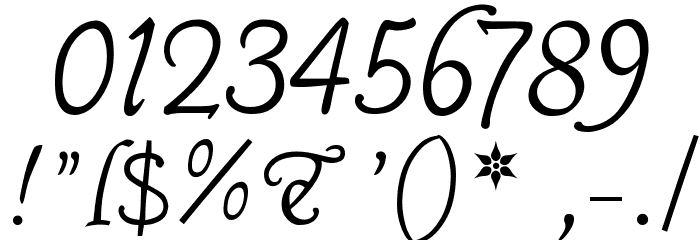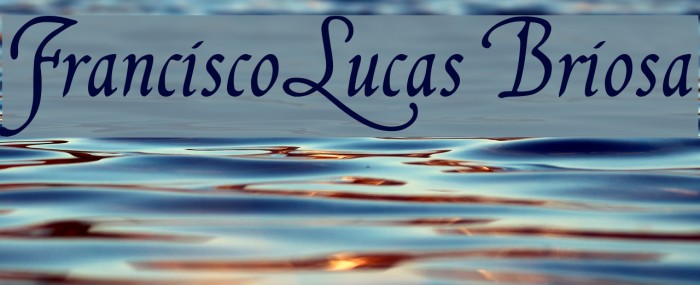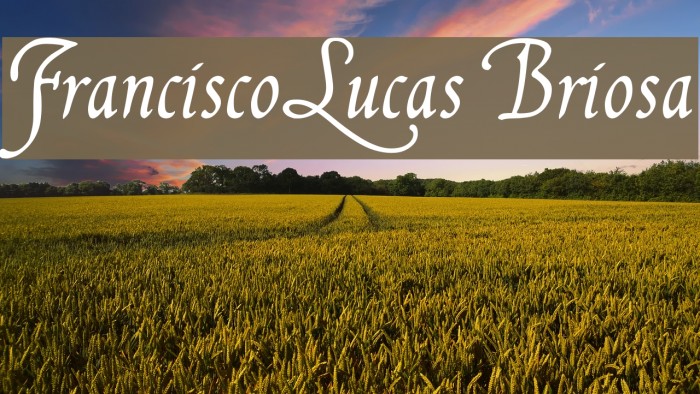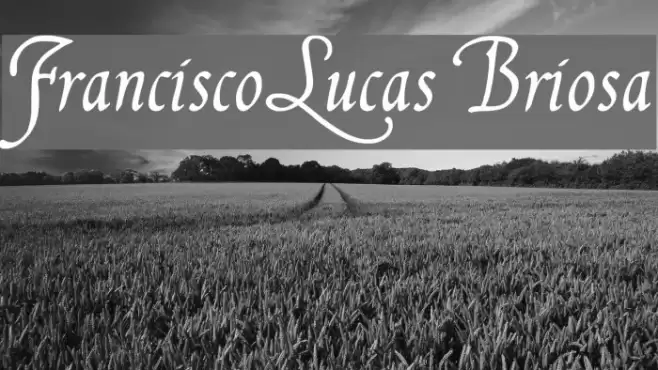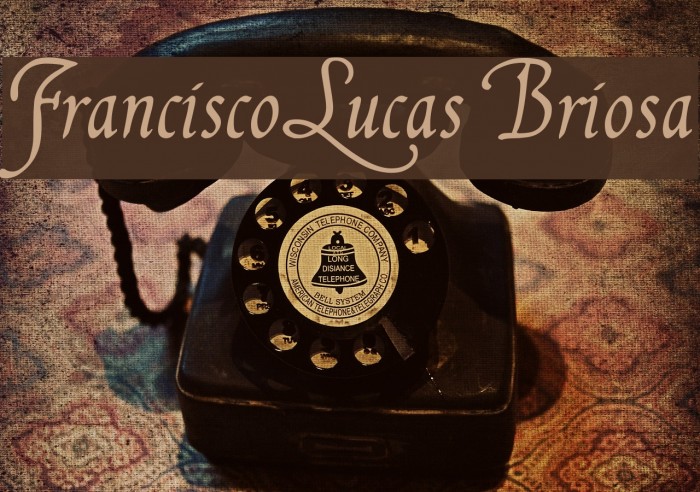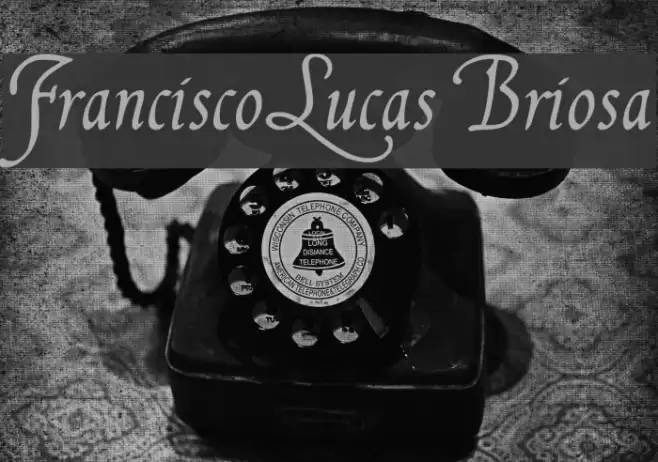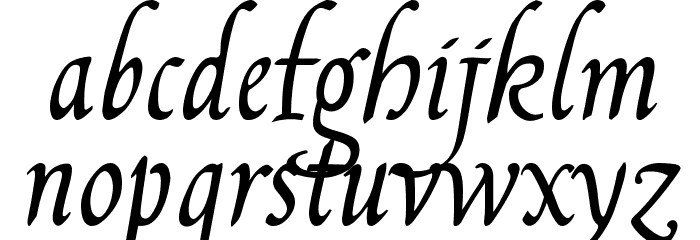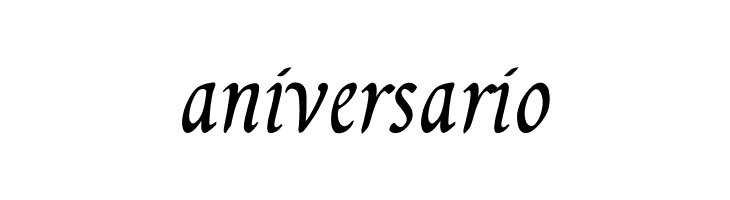
FranciscoLucas Briosa Font
FranciscoLucas Briosa Description
This font exhibits a classic and elegant script style, characterized by its flowing, cursive letters with ornate swashes and flourishes. The uppercase letters are particularly decorative, featuring intricate loops and curves that give a sense of sophistication and artistry. The lowercase letters maintain a more subdued elegance, with smooth, flowing lines that enhance readability while still retaining a touch of flair. The numerals are consistent with the overall style, featuring slight curves and a balanced design. Special characters are thoughtfully integrated, maintaining the decorative theme with unique embellishments. This font is ideal for projects that require a touch of historical elegance and artistic expression.
| Overall Style | Classic |
| Use Case | Logos, Invitations, Decorative headings |
| Proposed Projects | Ideal for wedding invitations, formal event programs, historical documents, and artistic branding. |